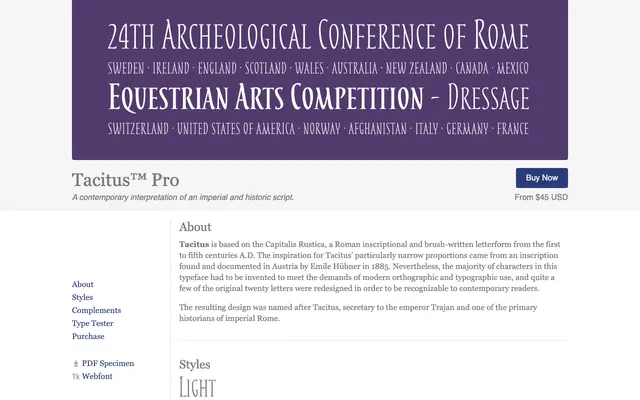
Tacitus™ Pro
A revival of the Capitalis Rustica, the narrow Roman brush-written inscriptional script, adapted for contemporary typographic use.
Drawn from a Capitalis Rustica inscription documented in Austria in 1885, the design takes its distinctively narrow proportions directly from that source. Because the original script covered only around twenty letters, the majority of glyphs required invention to support modern orthography, and several originals were redrawn for legibility. The family carries a full suite of OpenType features including small caps, multiple figure styles and fractions.
Based on Capitalis Rustica, a Roman inscriptional and brush-written script tradition from the 1st–5th centuries AD, with narrow proportions drawn from a documented Austrian inscription; classified as display due to its historical letterform origins and specialised decorative application.